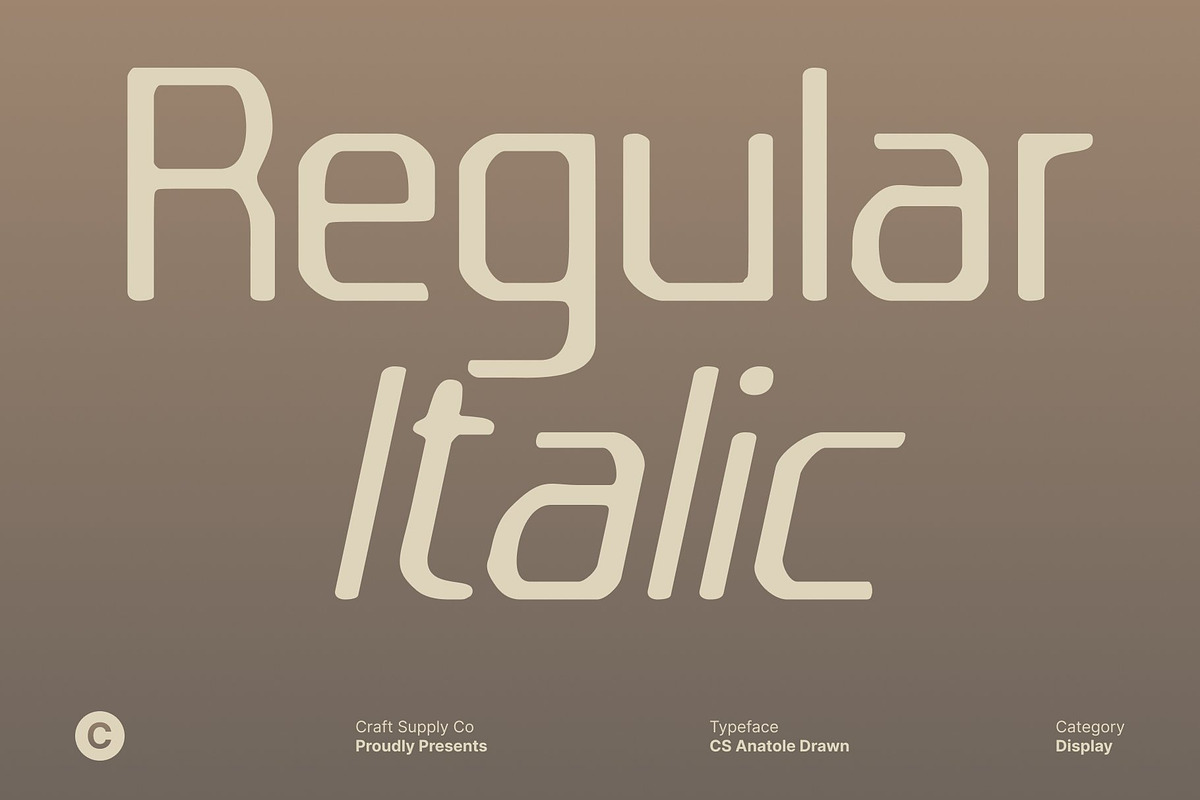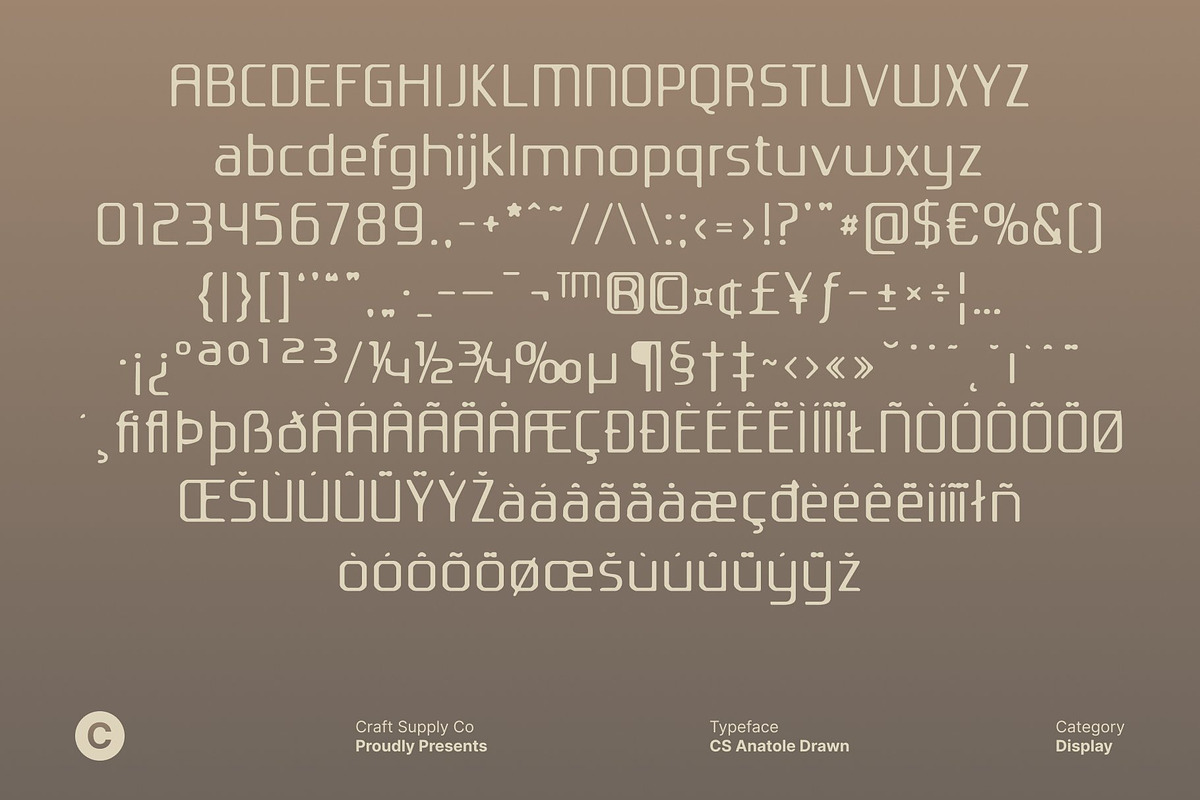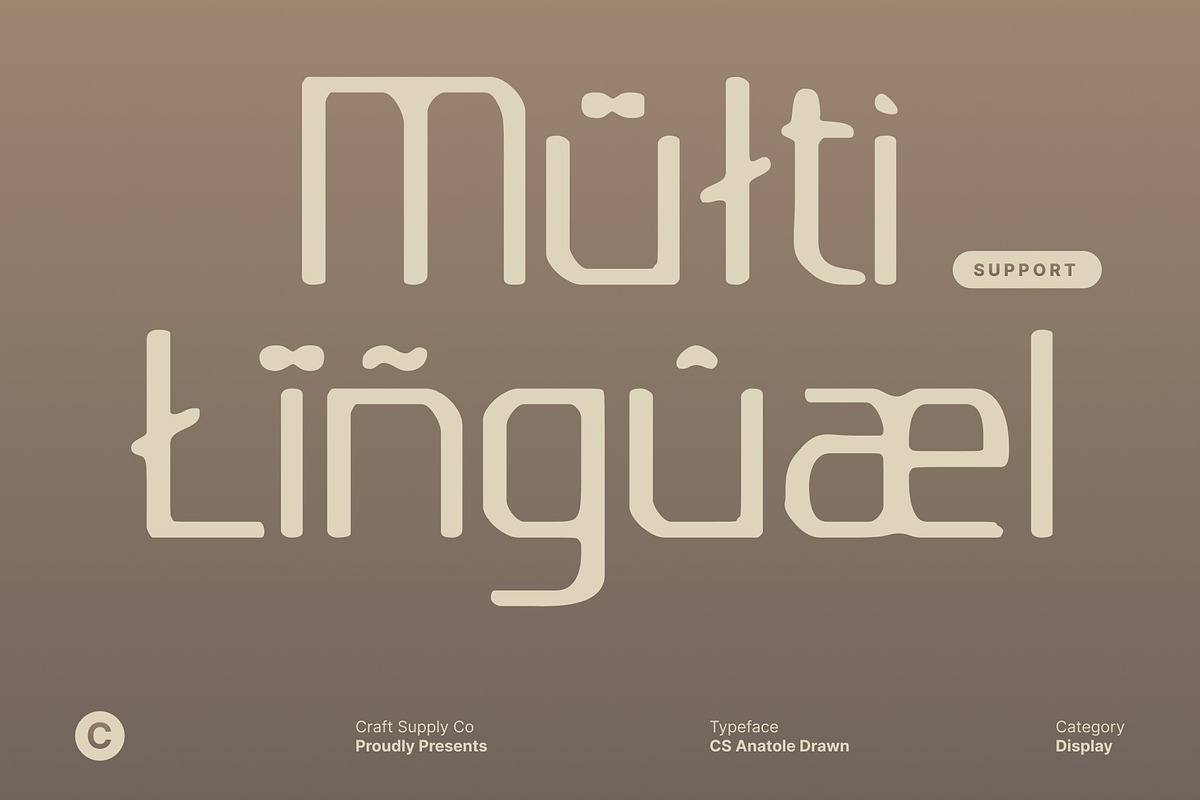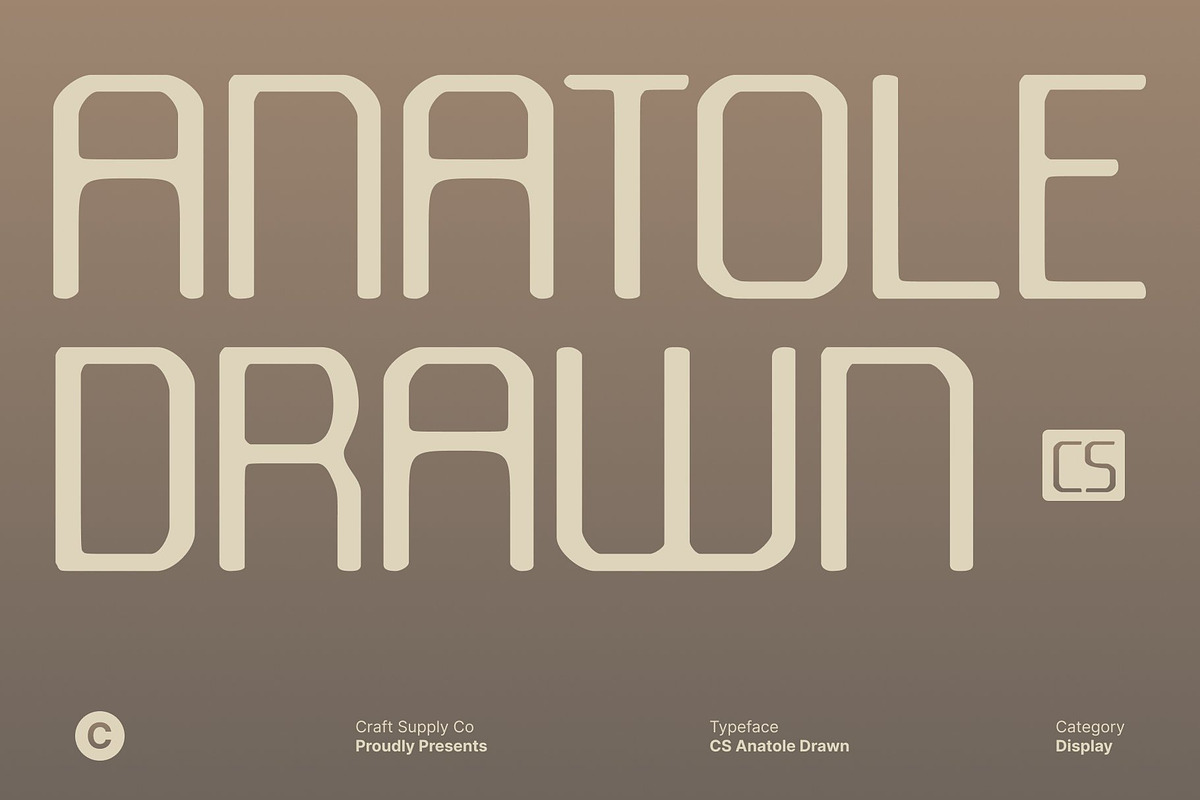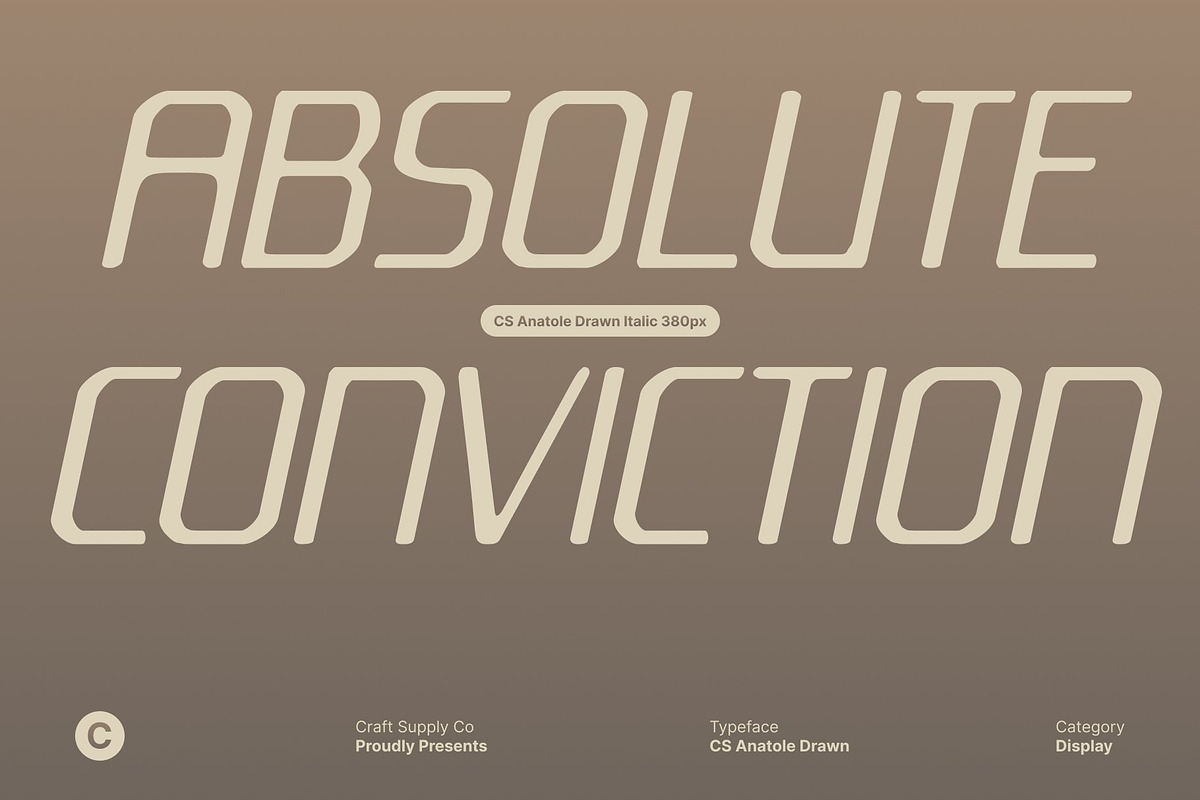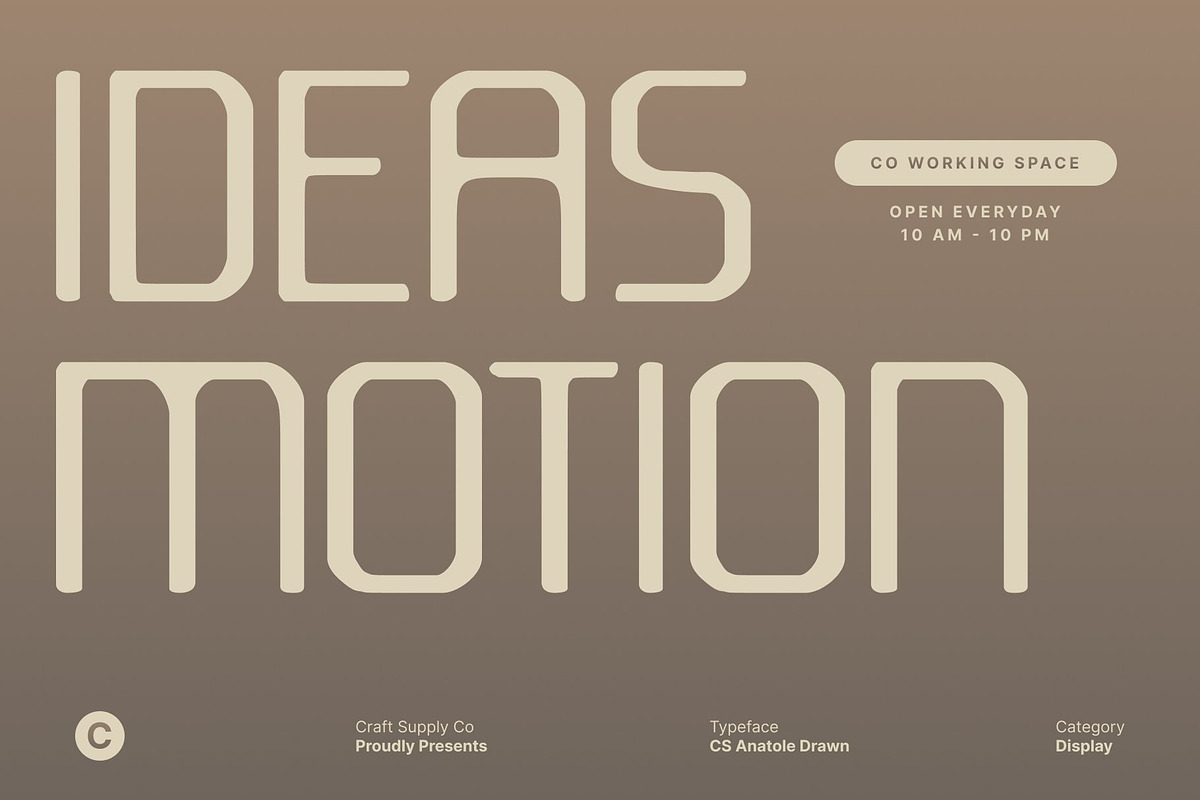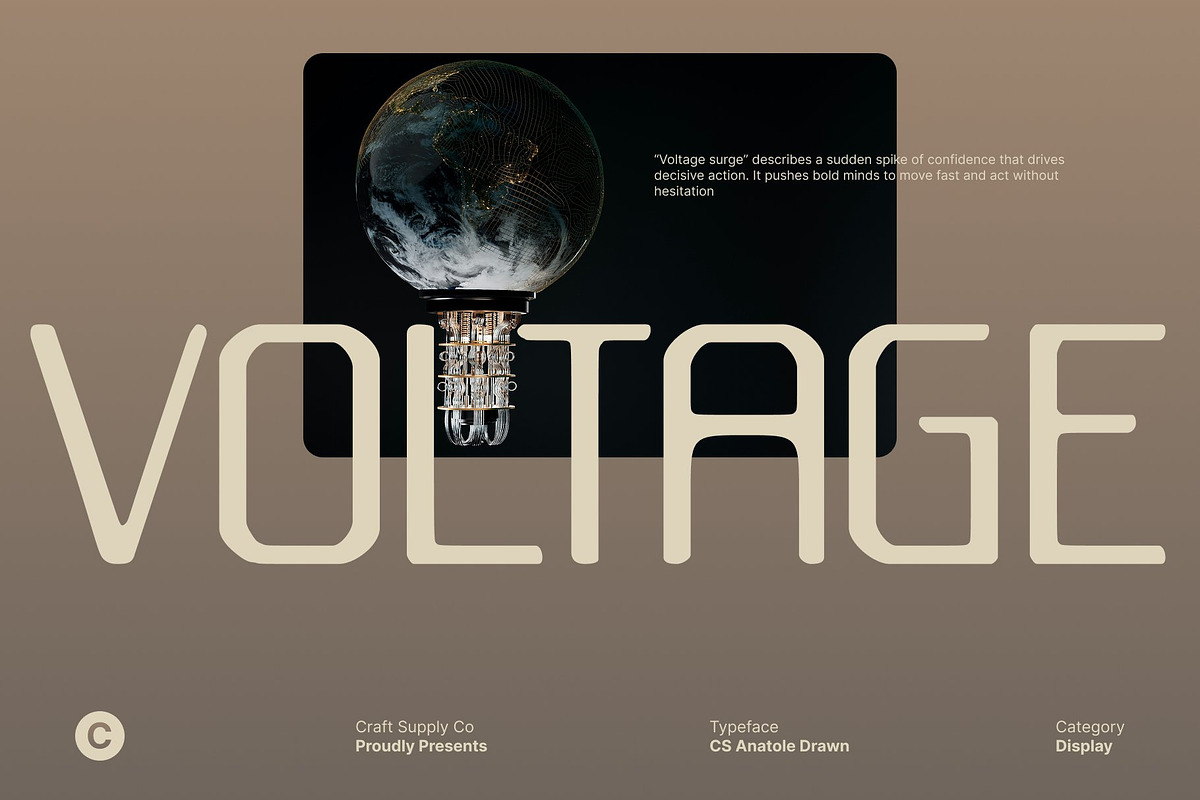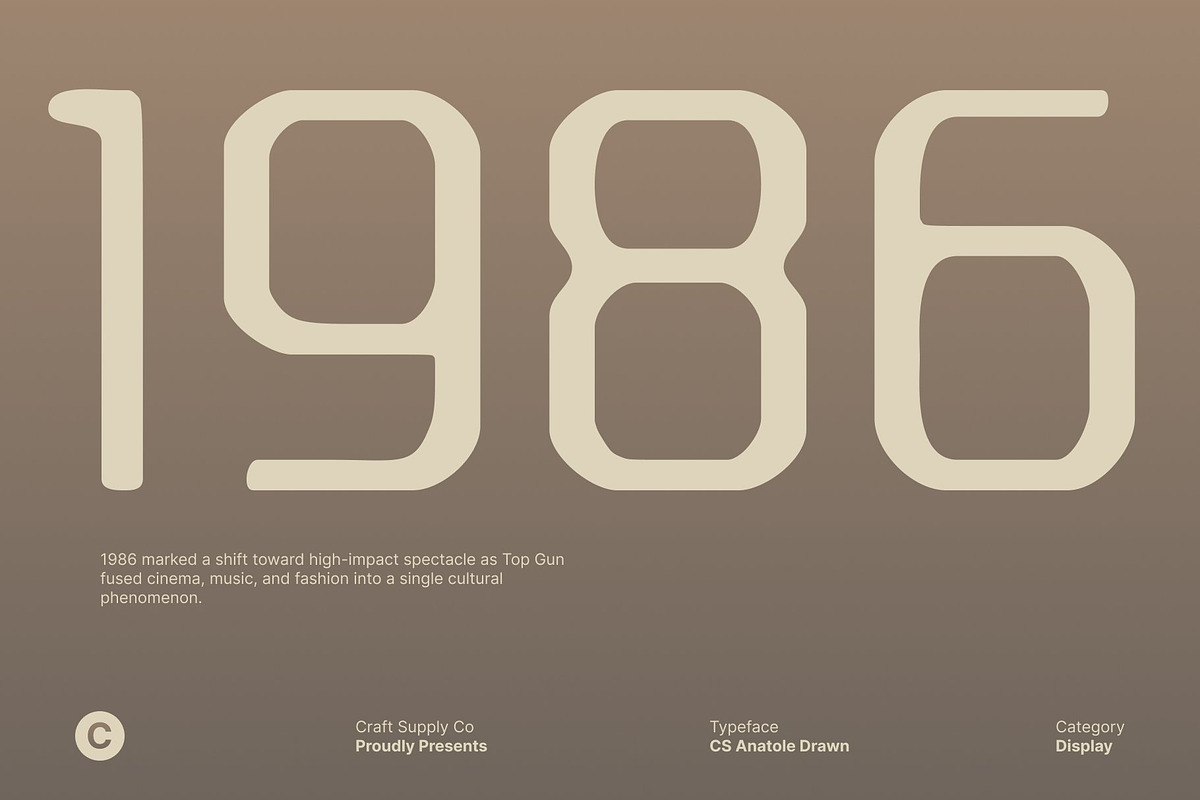
CS Anatole Drawn
CS Anatole Drawn – Where Futurism Meets Modern Elegance
Modern Futuristic Display with Handcrafted Edge This is a modern futuristic display font built on clean sans serif geometry and contemporary design principles. Its sleek structure reflects precision, progress, and innovation, while the drawn effect introduces a subtle handcrafted touch. This combination creates a font that feels advanced yet human, perfect for forward-thinking visual identities.
Refined Shapes with Dynamic Balance Each letterform is carefully constructed with sharp lines, balanced proportions, and streamlined forms. The futuristic geometry delivers a bold, high-tech impression, while the drawn texture softens the overall look, adding character and uniqueness. This balance ensures strong visual impact without sacrificing clarity or elegance.
Natural Texture for Unique Visual Character The drawn effect gives this font a natural, organic texture that sets it apart from typical futuristic fonts. Slight imperfections and expressive strokes bring warmth and individuality to the design, making every word feel distinctive, modern, and visually engaging.
Perfect for Branding, Tech, and Contemporary Design This font is ideal for branding, logos, posters, headlines, and digital interfaces that value innovation and style. Its futuristic elegance paired with a natural drawn feel makes it a strong choice for tech brands, creative studios, editorial layouts, and modern promotional designs.